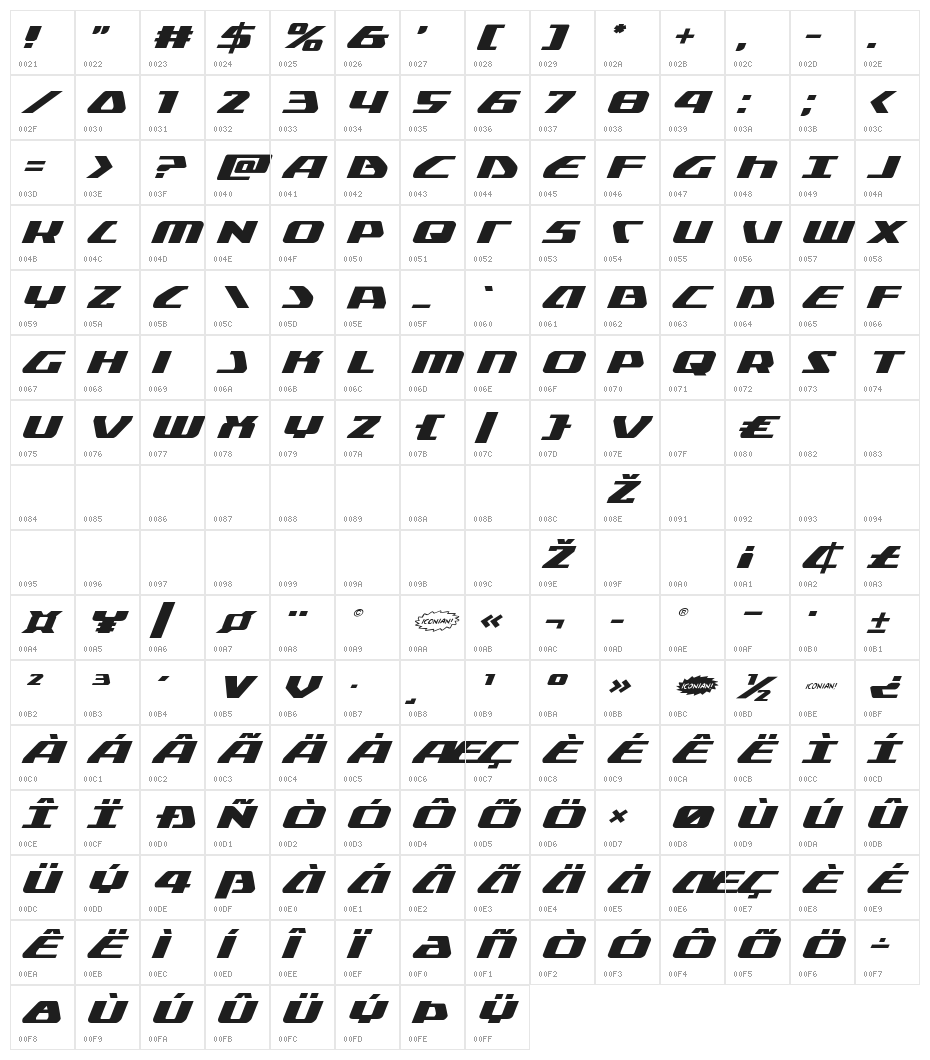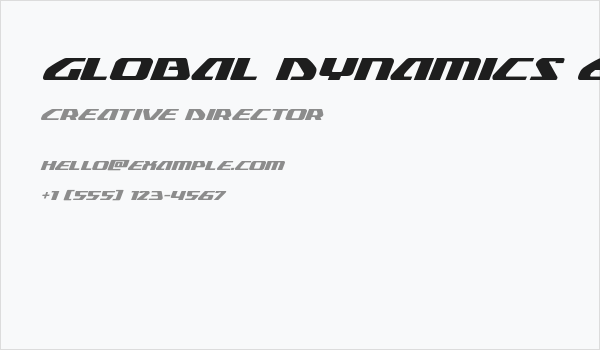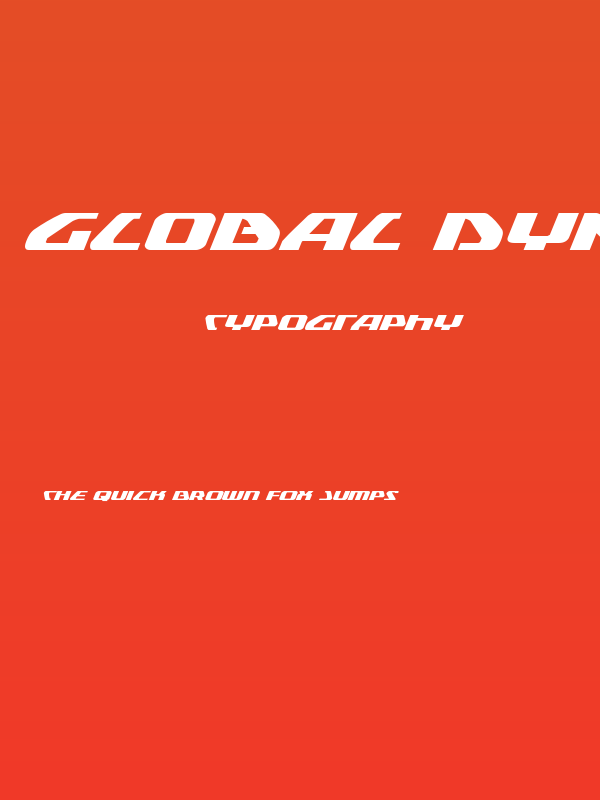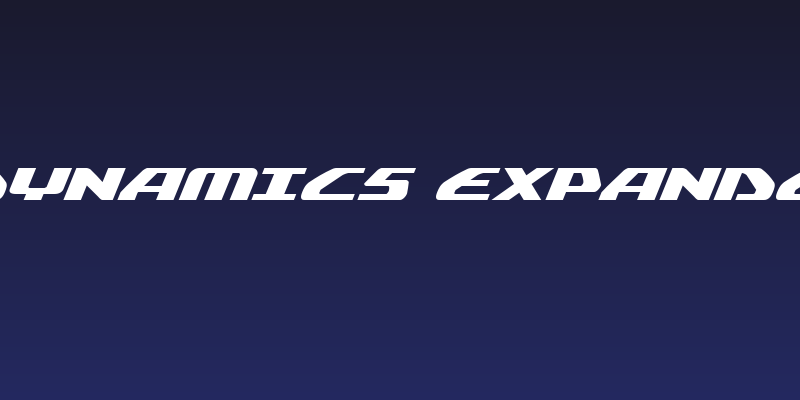
Global Dynamics Expanded Italic Font
Global Dynamics Expanded Italic Description
This font features a bold and dynamic style with a futuristic flair. The characters are italicized and expanded, giving them a sense of movement and speed. The angular and geometric shapes of the letters create a modern and edgy appearance. The uppercase and lowercase letters maintain a consistent style, with sharp edges and a slight slant. The numbers and special characters are designed to match the overall aesthetic, making them suitable for a variety of uses. The font's boldness and expanded width make it stand out, ideal for attention-grabbing designs.
| Proposed Projects | Ideal for sci-fi themed projects, technology branding, video game titles, and dynamic posters. |